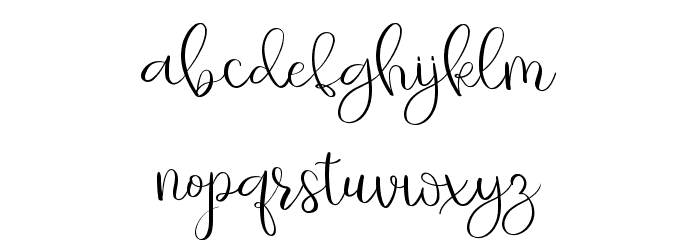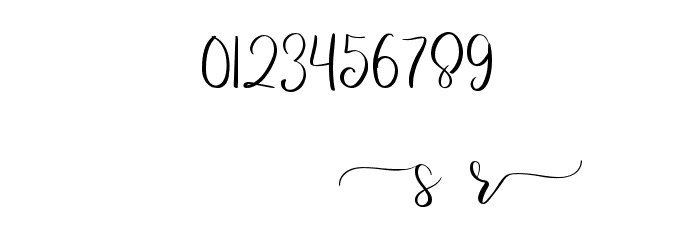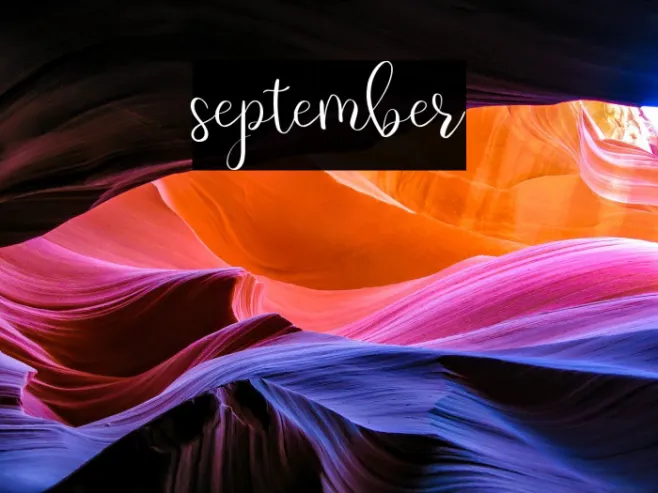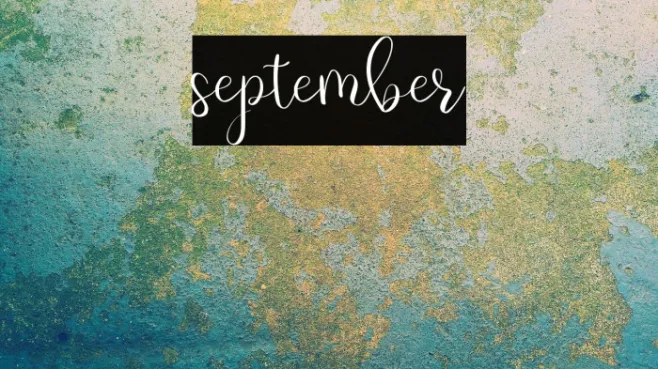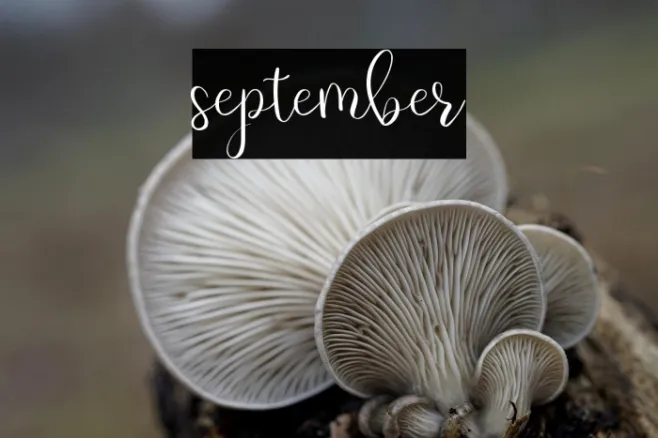
september Font
This font features an elegant and flowing script style, characterized by its graceful curves and loops. The uppercase letters are tall and slender, with a distinct flair that adds a touch of sophistication. The lowercase letters maintain a consistent flow, enhancing readability while preserving the decorative nature of the script. Numbers and special characters are designed to match the overall aesthetic, ensuring a cohesive look across all text elements. The font's delicate strokes and smooth transitions make it ideal for projects that require a touch of elegance and style.
An elegant and flowing script font with graceful curves.
- Proposed Projects: Ideal for wedding invitations, greeting cards, branding, and elegant logo designs.
- Category: Script
- Overall Style: Elegant, Decorative
- Use Case: Headlines, Logos, Invitations